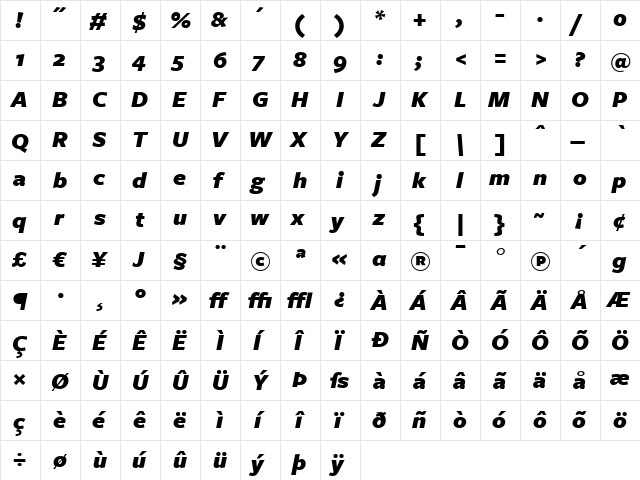
FreightSans BlackItalic
| Foundry | Joshua Darden & Phil's Fonts, Inc |
| Designer | Joshua Darden |
Design Context for FreightSans Typeface
FreightSans is a composed and adaptable typeface that performs quietly and consistently across a wide range of design contexts. The dynamic lean of this cut emphasises speed and emphasis in any layout.